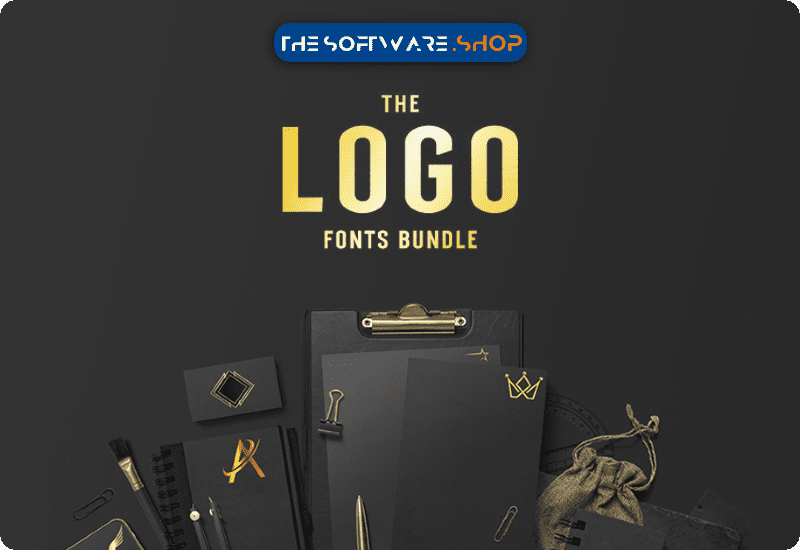
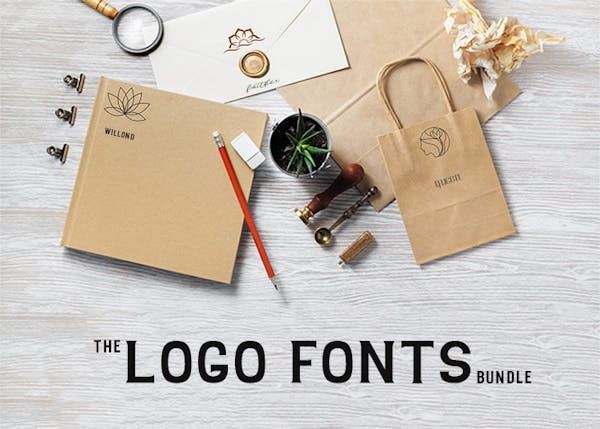
Logos are the face of a brand and can leave a lasting impression on customers. It’s essential to create a logo that not only represents your brand but also stands out from the crowd. The Logo Fonts Bundle offers a diverse range of 130+ fonts across 79 typefaces to help you create a sophisticated and timeless logo.
Choose from a Variety of Logo Fonts for Your Brand
Using the same old fonts for logo designs can make them look outdated and unprofessional. The Logo Fonts Bundle provides a diverse range of fonts to help you create a unique and sophisticated logo that represents your brand’s style and values. The bundle includes modern, classic, minimalist, and futuristic styles to choose from, giving you the flexibility to create a polished logo that stands out.
Whether you are designing a logo for a new brand or revamping an existing one, The Logo Fonts Bundle has something for everyone. With 130+ fonts to choose from, you can experiment with different styles and find the perfect font that resonates with your brand’s message.
Q3. What types of fonts are included in The Logo Fonts Bundle?
The Logo Fonts Bundle offers modern, classic, minimalist, and futuristic styles to create a professional and polished logo.